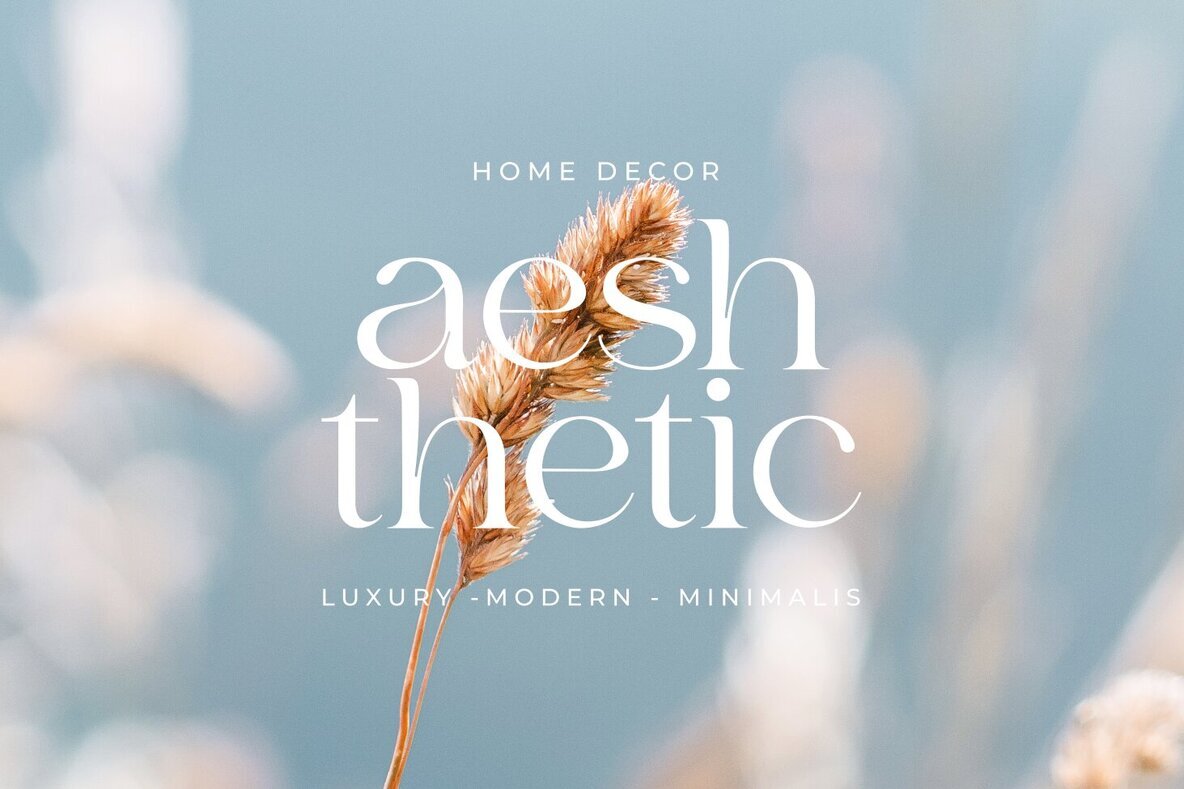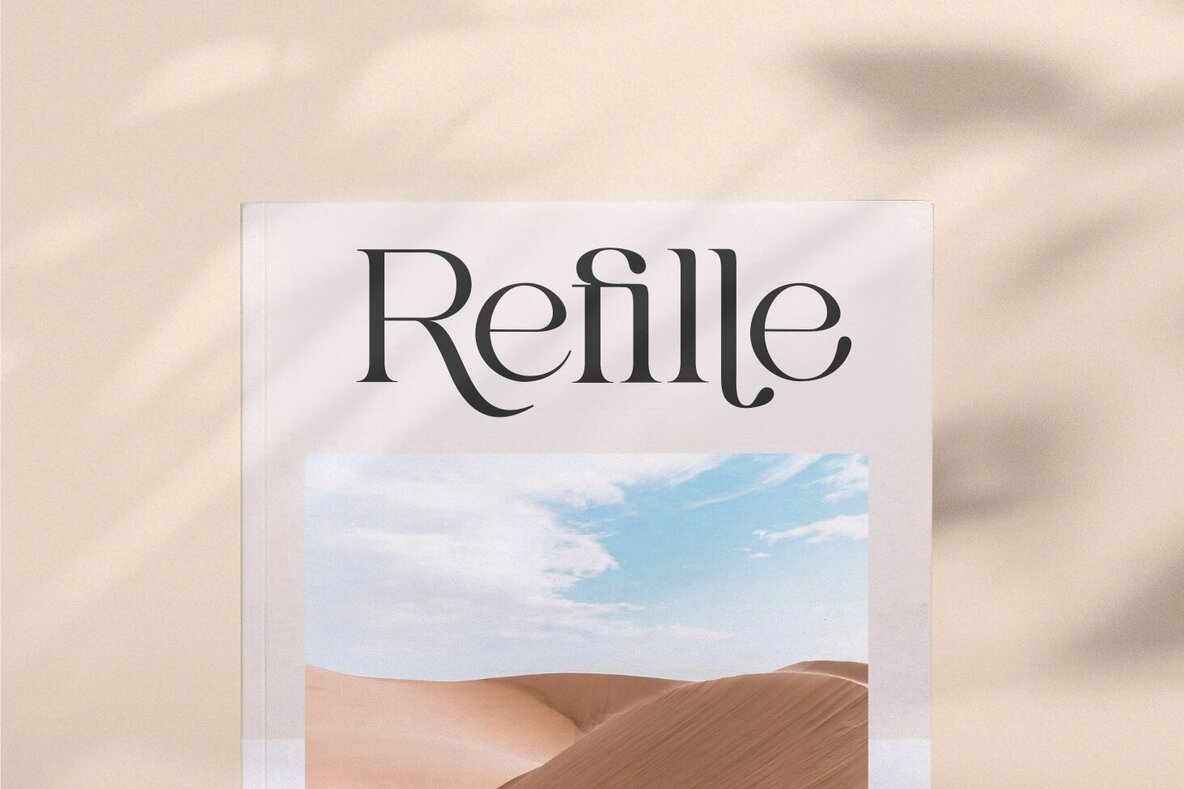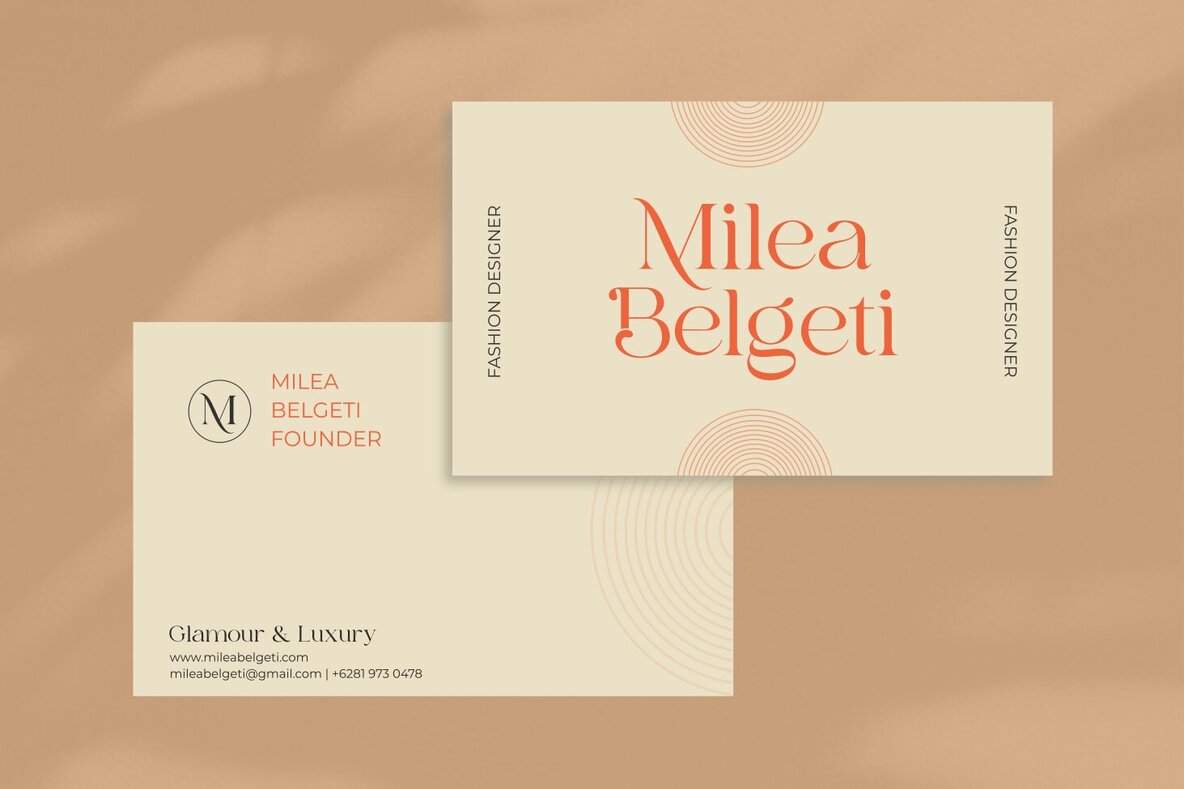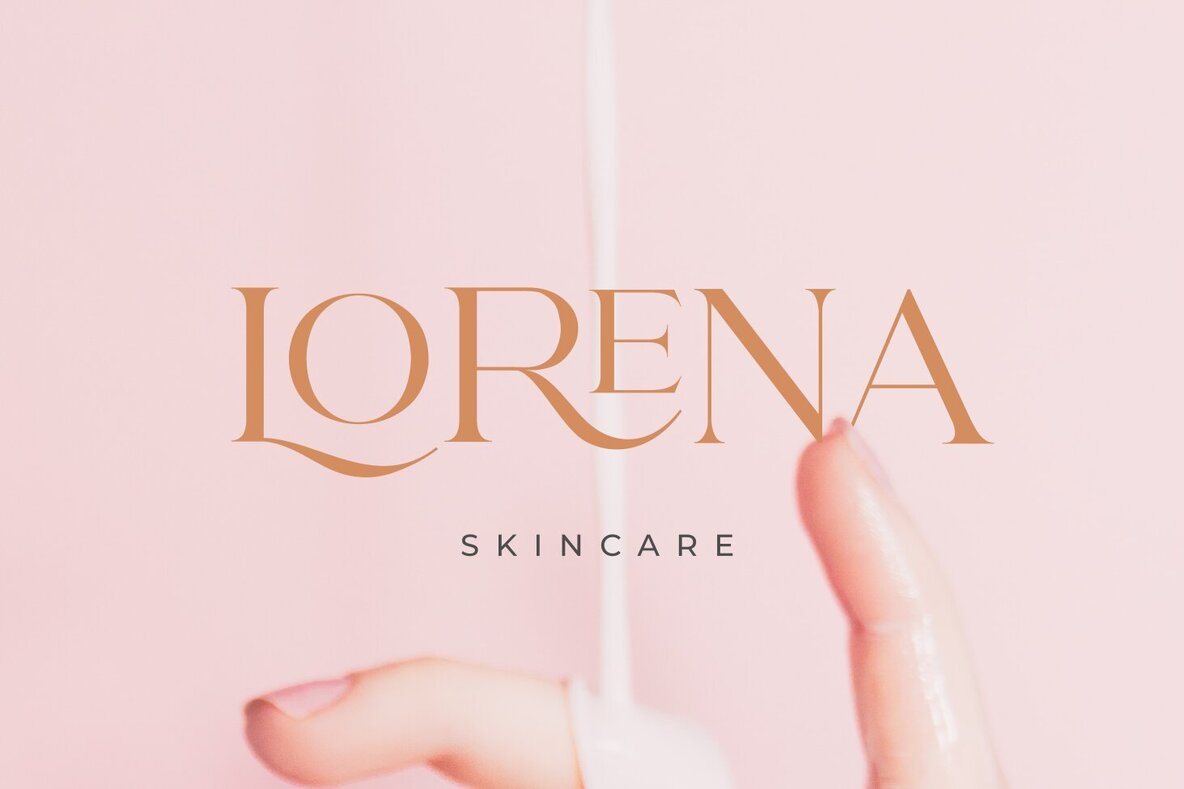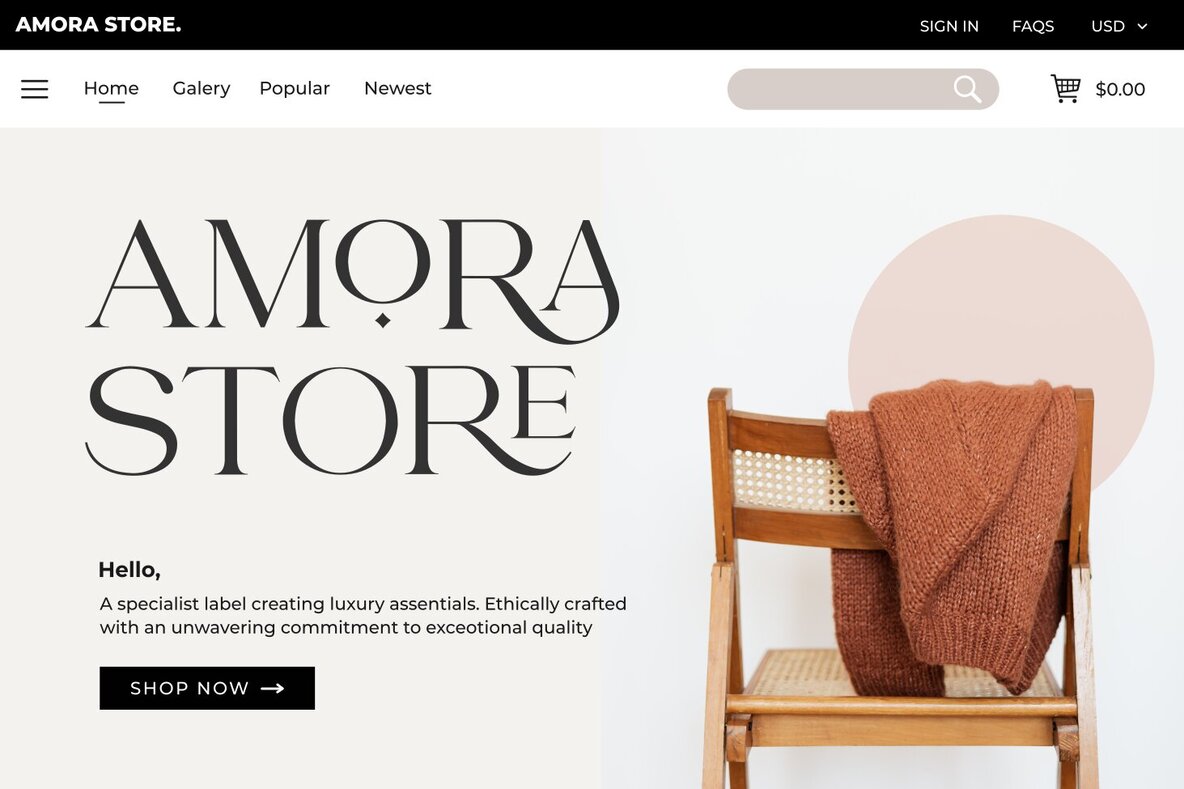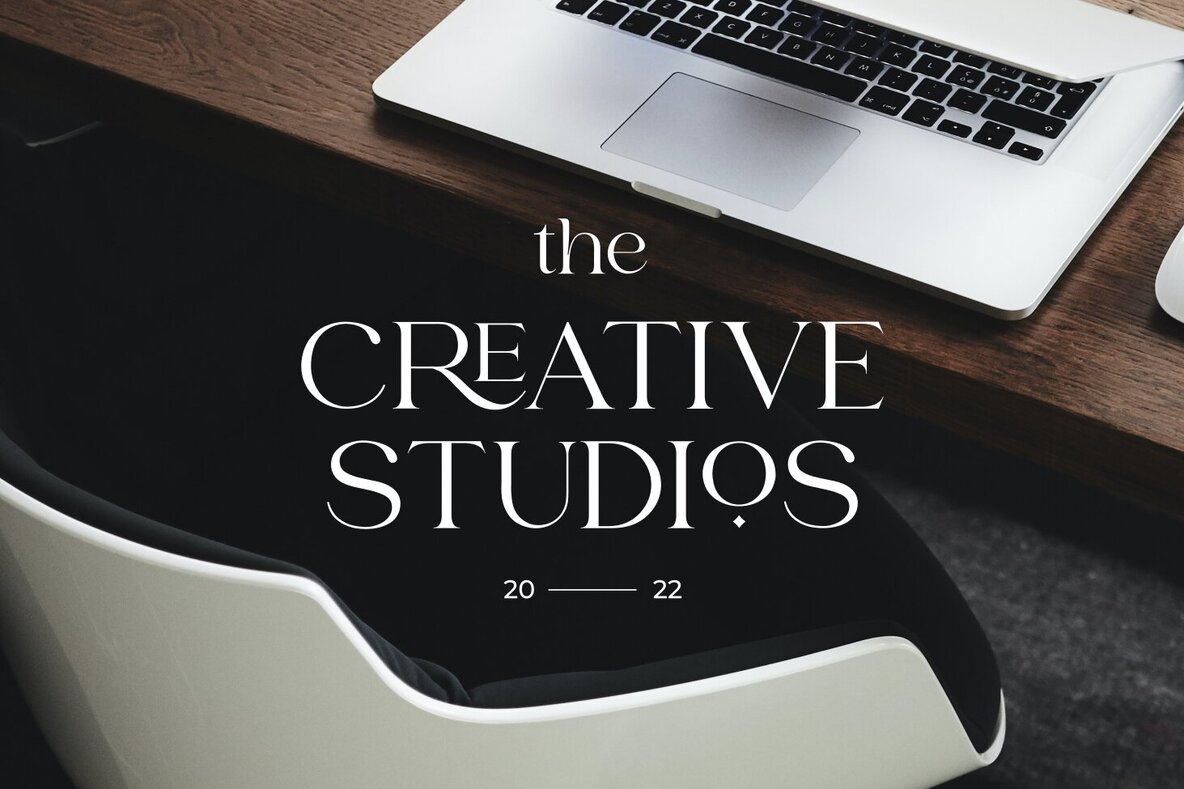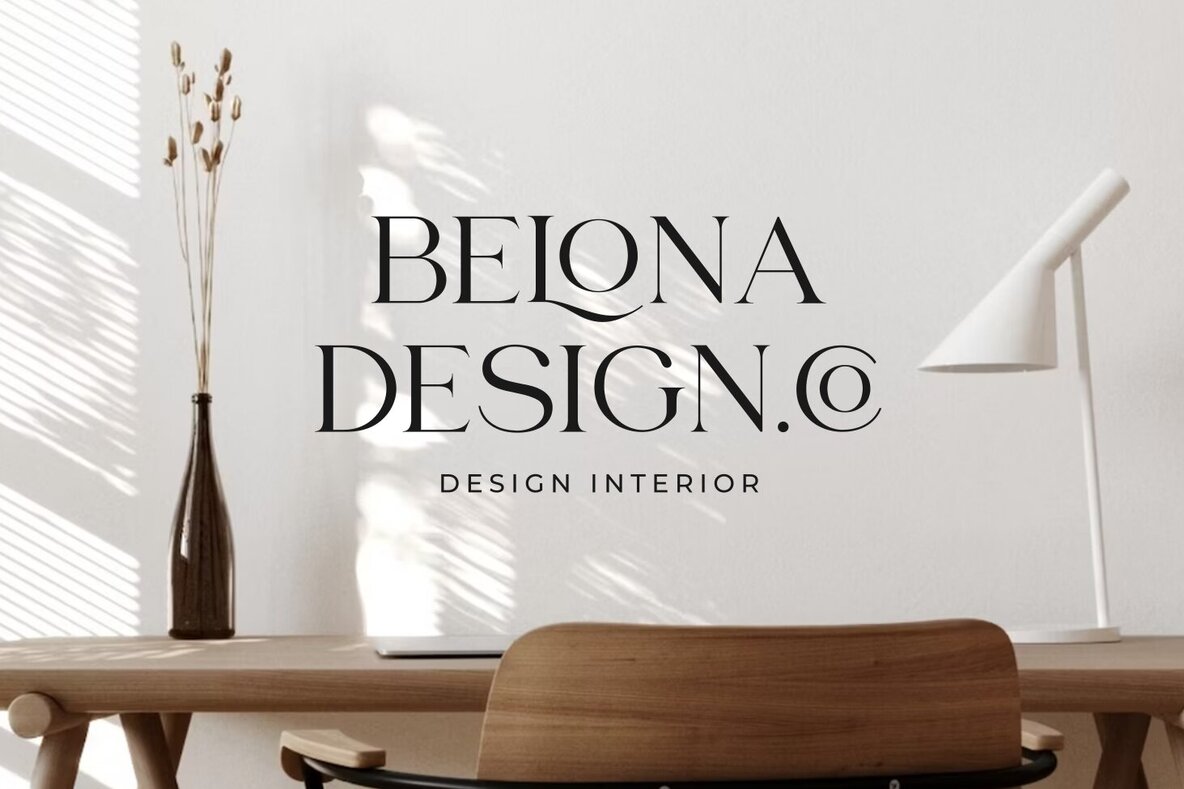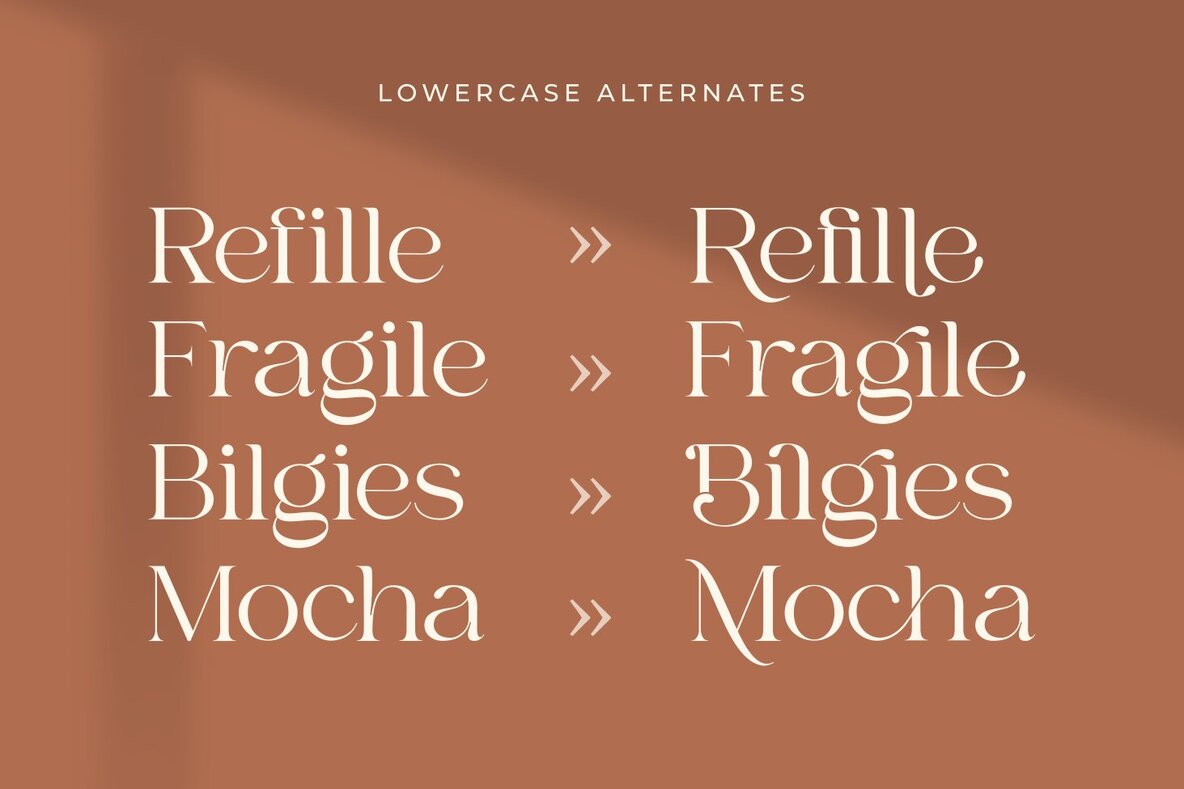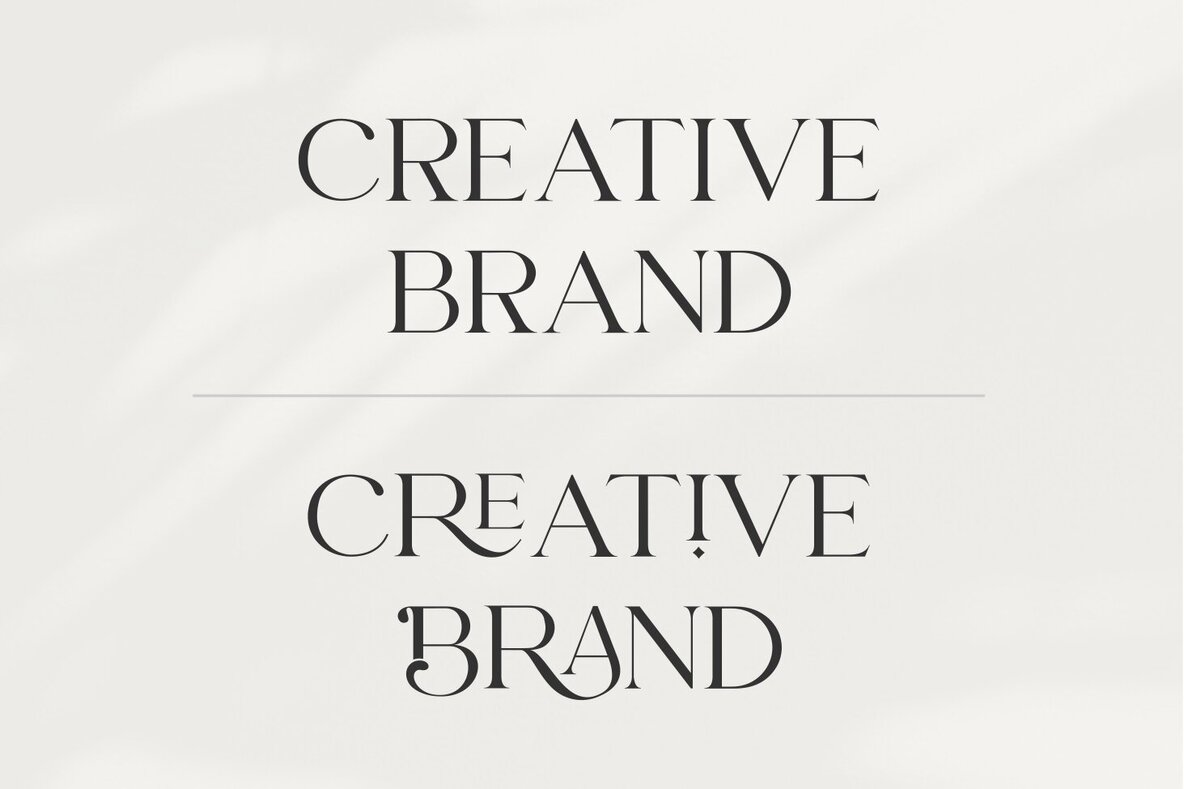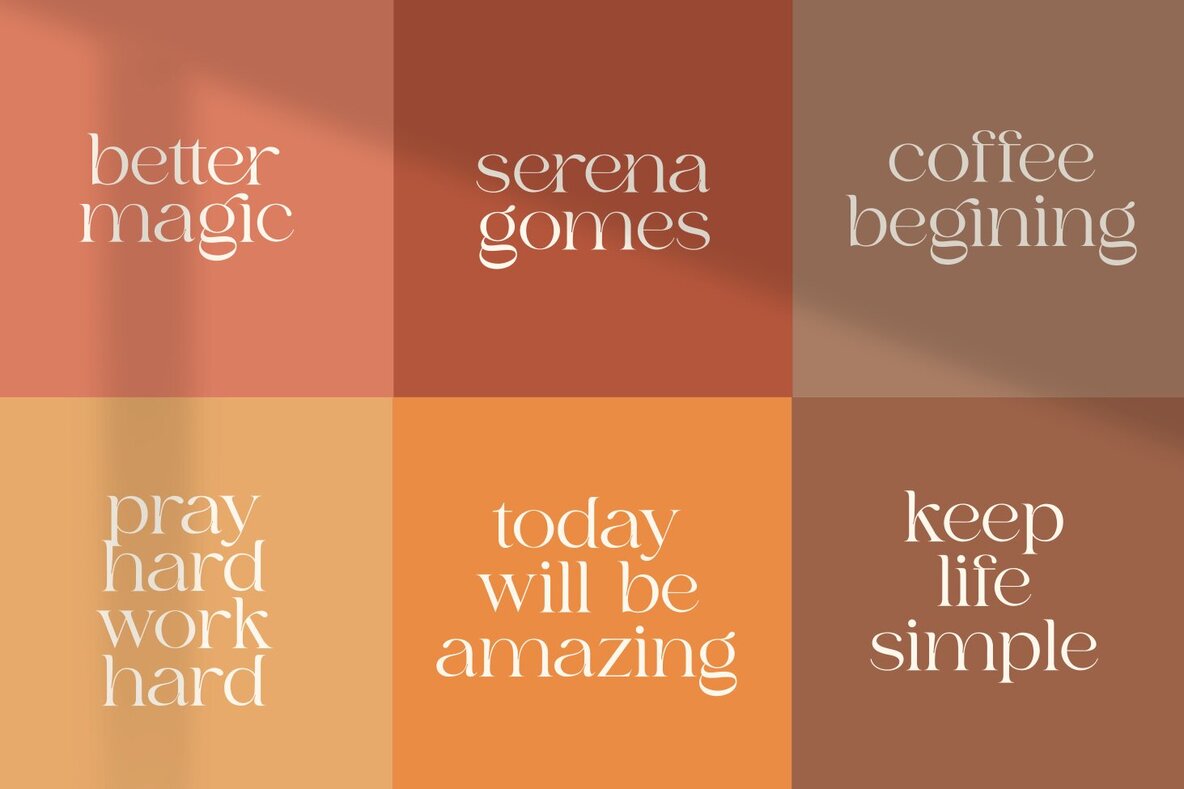
Bilgie Font
Bilgie Regular
Bilgie is a chic serif font that combines modern and classic elements, offering a unique and diverse look. This versatile typeface thrives in large-scale applications and adds a playful touch to your projects. Ideal for editorial projects, logo design, clothing branding, product packaging, magazine headers, or as a stylish text overlay on any background image. We hope you enjoy Bilgie. Feel free to share any thoughts or feedback.Bilgie: A Chic Serif Font for Modern and Classic Designs